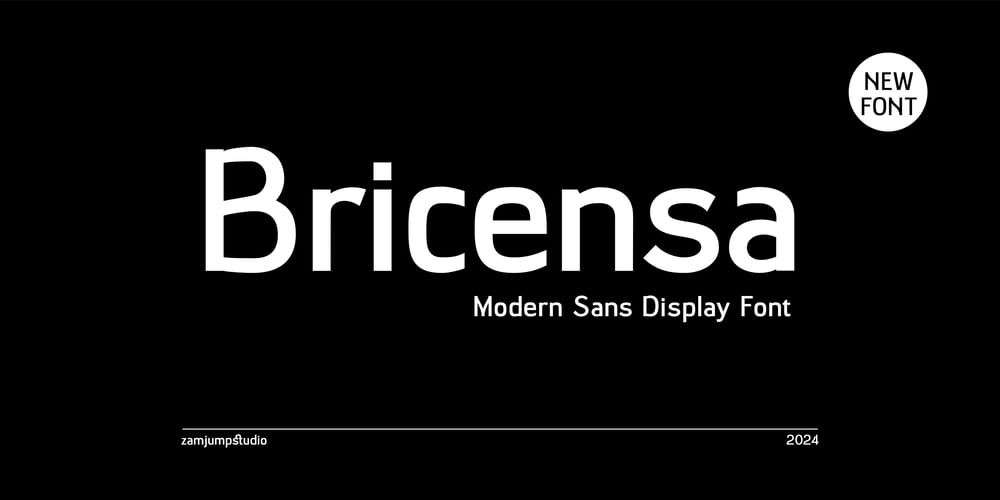
Bricensa Font Family was designed by Zamjump, Ahmad Zamzami and published by Zamjump. Bricensa contains 1 styles and family package options. Bricensa – Modern Sans Serif Display FontElevate your design projects with Bricensa, a sophisticated modern sans serif display font. Meticulously crafted to embody both contemporary aesthetics and timeless elegance, Bricensa offers a perfect blend of sharp lines and smooth curves. This versatile typeface is designed to stand out in both digital and print mediums, making it ideal for branding, headlines, posters, and editorial design. Whether you’re looking to create impactful headlines or sleek logos,